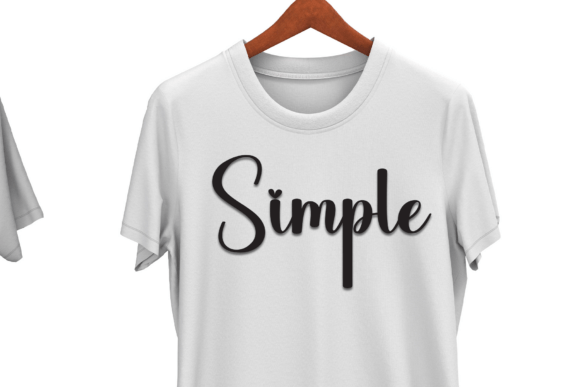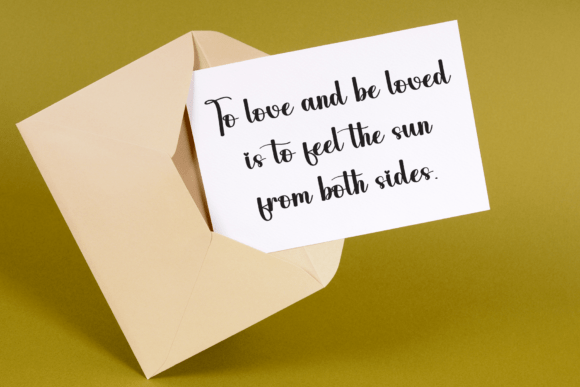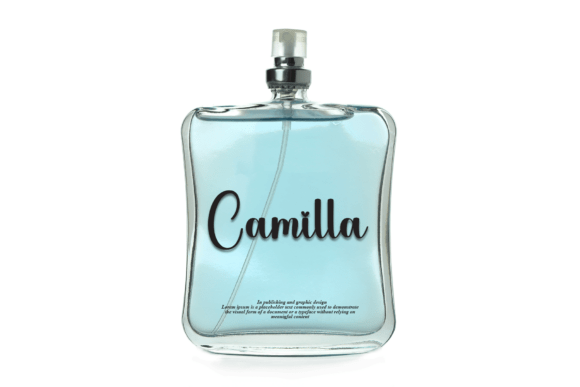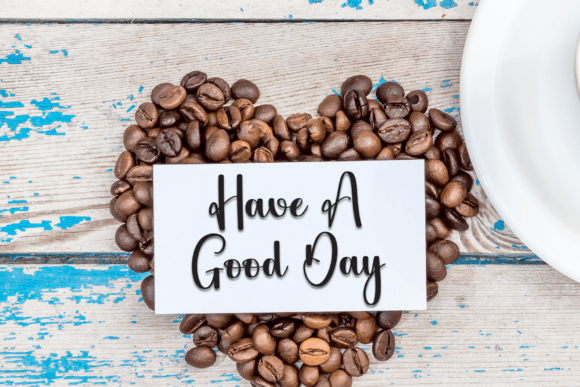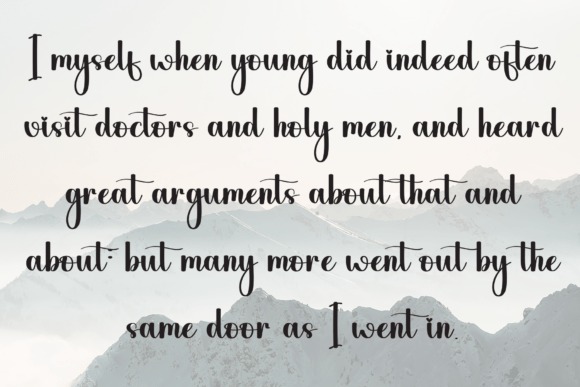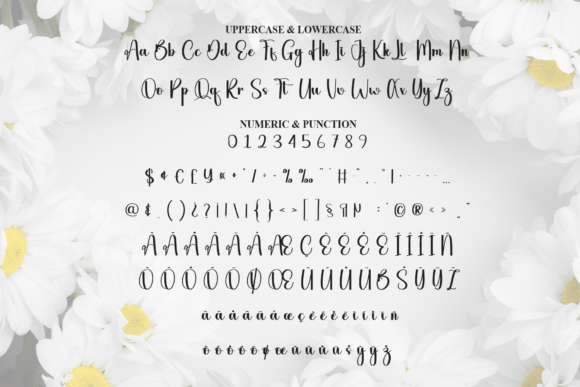
Daisy Font: Elevate Your Designs with Elegance and Playfulness
In the world of typography, few fonts manage to strike a balance between elegance and playfulness as effortlessly as Daisy Font. This stylish handwritten script font has captured the hearts of designers and crafters alike with its unique blend of sophistication and charm. With its flowing curves and natural rhythm, Daisy Font is the perfect addition to any project that requires a personal touch.
The Characteristics of Daisy Font
Daisy Font is a true gem in the realm of script fonts. Its design is characterized by:
- Flowing Curves: Daisy Font features smooth, flowing curves that give it a natural and effortless look.
- Natural Rhythm: The font’s rhythm is organic and fluid, making it perfect for creating a sense of movement and energy in your designs.
- Elegant Strokes: Each stroke in Daisy Font is crafted with precision and care, resulting in a font that exudes elegance and sophistication.
- Playful Touch: Despite its elegance, Daisy Font has a playful side that makes it perfect for designs that require a touch of whimsy.
Uses of Daisy Font
Daisy Font is incredibly versatile, making it suitable for a wide range of design projects. Some of the most popular uses of this font include:
- Invitations: Whether you’re designing wedding invitations, birthday party invites, or baby shower announcements, Daisy Font adds a touch of elegance and sophistication.
- Branding: Use Daisy Font to create a unique and memorable brand identity that sets your business apart from the competition.
- Social Media: Add a personal touch to your social media posts and stories with Daisy Font, making your content stand out in a crowded feed.
- Stationery: Create beautiful stationery, such as notebooks, journals, and greeting cards, with Daisy Font as the perfect accompaniment.
Benefits of Using Daisy Font
So, why should you choose Daisy Font for your next design project? Here are just a few benefits:
- Warmth: Daisy Font brings a sense of warmth and coziness to your designs, making them feel more approachable and inviting.
- Sophistication: The font’s elegant design adds a touch of sophistication to any project, making it perfect for high-end brands and luxury products.
- Creativity: Daisy Font’s playful side makes it an excellent choice for designers looking to add a creative twist to their work.
- Versatility: With its wide range of applications, Daisy Font is a versatile addition to any designer’s toolkit.
Tips for Using Daisy Font
To get the most out of Daisy Font, here are a few tips to keep in mind:
- Pair with contrasting fonts: Combine Daisy Font with a contrasting font to create visual interest and hierarchy in your designs.
- Experiment with colors: Try pairing Daisy Font with different colors to add depth and personality to your designs.
- Play with sizes: Experiment with different font sizes to create a sense of movement and energy in your designs.
Daisy Font is a stylish and versatile handwritten script font that brings elegance and playfulness to any design project. With its flowing curves, natural rhythm, and elegant strokes, it’s the perfect choice for designers and crafters looking to add a personal touch to their work. Whether you’re designing invitations, branding materials, or social media content, Daisy Font is sure to elevate your designs and leave a lasting impression.